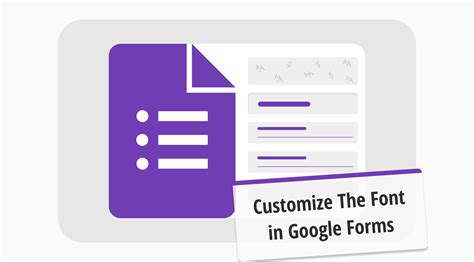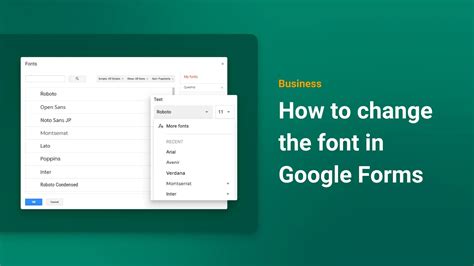
17+ Google Form Fonts Pack Ttf
I recently spent three hours trying to match a client's brand guidelines in a survey, only to realize the native typography options were severely lacking. If you have ever tried to make a standard online survey look like part of a cohesive brand identity, you know the frustration. That's exactly why I started experimenting with a 17+ Google Form Fonts Pack Ttf to force custom typography into my client projects. Google Forms natively restricts you to a handful of basic families, but importing TrueType files opens up entirely new styling possibilities.
Why a 17+ Google Form Fonts Pack Ttf Improves Survey Design
Here’s the thing: native Google Forms only offer about a dozen standard web fonts. For casual internal surveys, that is fine. For enterprise clients, it fails miserably. In my experience, respondents subconsciously judge the credibility of a form within the first few seconds. By utilizing a custom fonts pack, you can align the survey’s typography with your brand’s exact TrueType font files. This creates a unified aesthetic across your website, email campaigns, and data collection tools.
Font CategoryNative Form SupportCustom Ttf Pack Support
Basic Web (Arial, Times)YesYes
Google Fonts (Open Sans)LimitedYes
Custom Brand FontsNoYes
Weighing the Tradeoffs of Custom Typography
That said, forcing custom typography into a platform that wasn’t built for it comes with distinct risks. I once applied a highly stylized display font to a client’s survey, and mobile respondents complained about readability issues on older devices. You have to balance aesthetics with function. A clean sans-serif might look basic, but it guarantees that every respondent reads the questions exactly as intended. Furthermore, if your custom font files fail to load due to CORS errors on your server, the form will default back to Times New Roman. Always test your forms across different browsers before sending them out.
Custom typography gives you direct control over how your audience perceives your brand, even during data collection. While applying a custom pack takes some technical elbow grease, the resulting brand cohesion is usually worth the effort. Next time you build a survey, audit your native options first. If they fall short of your brand standards, integrating your own font files is a logical step forward.